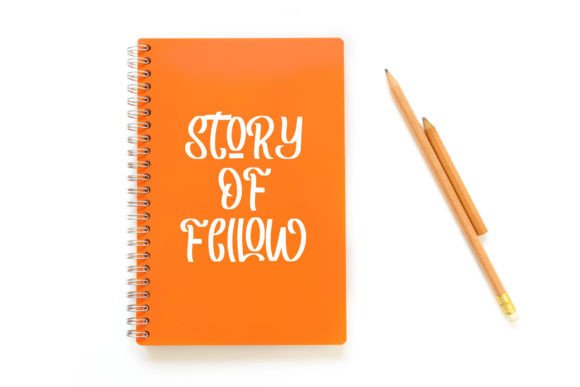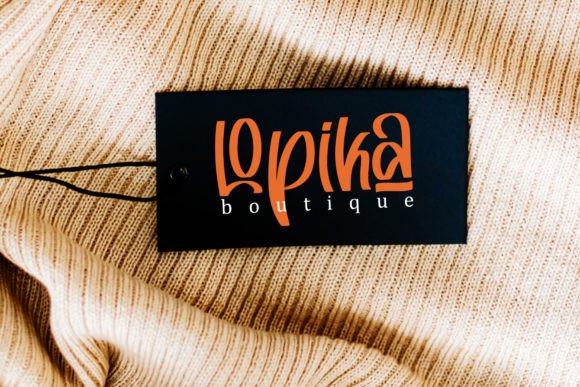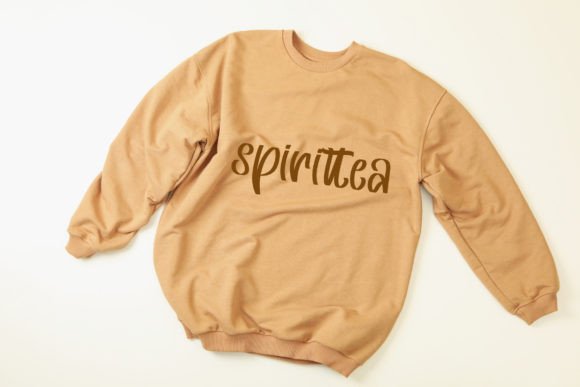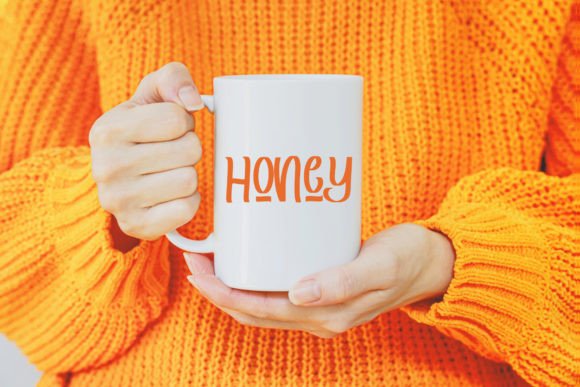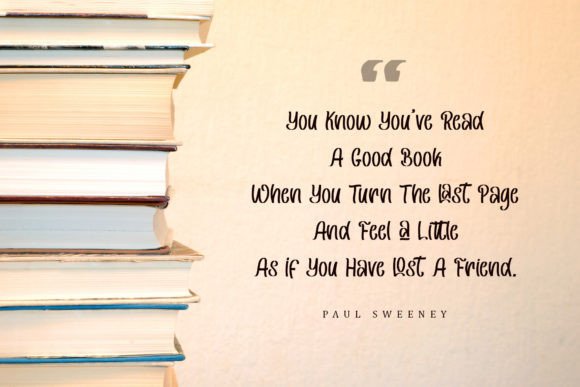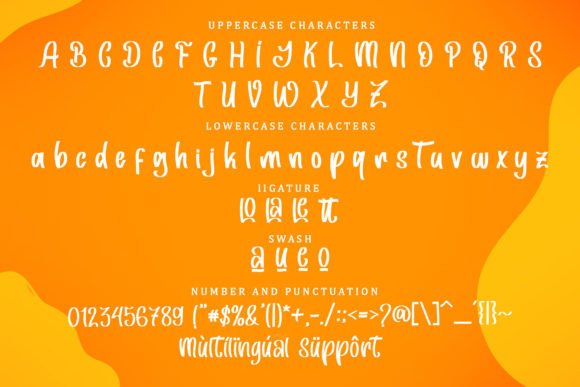
Introduction to Juice Love Font
Have you ever been in the middle of a design project, scrolling through font options, and suddenly stumble upon the perfect one? That’s exactly what happened to many designers when they discovered the Juice Love Font. This sweet and cursive handwritten font has captured the hearts of creatives worldwide, and for good reason.
Whether you’re working on a wedding invitation, a children’s book, or a social media campaign, the Juice Love Font adds a touch of joy and romance to any design. Its gentle curves and playful feel make it the perfect addition to any creative project. And the best part? It’s a high-quality design resource that’s available for free download, complete with a transparent background for seamless integration into your designs.
As a designer, you know how valuable it is to have access to a wide range of fonts that can elevate your work and make it truly stand out. The Juice Love Font is a must-have in any designer’s toolkit, and we’re excited to share its unique charm with you.
Key Features of Juice Love Font
- High-quality design: This font is crafted with precision and attention to detail, ensuring a professional look for any design resource.
- Unique characteristics: The Juice Love Font features a unique blend of modern and vintage elements, adding a touch of personality to any design.
Honest Review: Juice Love Font
I recently stumbled upon the Juice Love Font, and I’m excited to share my thoughts on this design resource. As a designer, I’m always on the lookout for high-quality fonts that can elevate my creative projects.
What works well with the Juice Love Font is its modern and playful aesthetic. The font is available for free download, which is a huge plus for designers on a budget. I also appreciate the transparent background, which makes it easy to work with in various design applications.
- ✨ Versatile and suitable for a wide range of creative projects, from logos to brochures.
- ✨ High-quality design that stands out from more generic fonts.
One limitation I’ve noticed is that the font may not be suitable for formal or professional projects, as its playful vibe might not be taken seriously. Additionally, the font’s design can be a bit overwhelming if used extensively.
Overall, I think the Juice Love Font is a great addition to any designer’s toolkit, especially for those working on creative projects that require a modern and playful touch. While it may have some limitations, its high-quality design and free download option make it a worthwhile resource to explore.
To get the most out of the Juice Love Font, use it in conjunction with other high-quality design resources. Experiment with different font sizes, colors, and arrangements to create unique and eye-catching designs. This font is ideal for creative projects that require a touch of elegance and sophistication.
The Juice Love Font is commonly used for creative projects such as wedding invitations, business cards, and social media graphics. Its unique and stylish design makes it perfect for any project that requires a touch of elegance and sophistication.